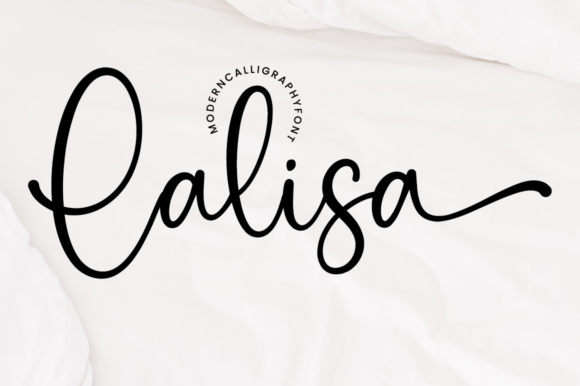
Looking for the perfect font to add a touch of elegance and class to your designs? Look no further than Lalisa Font! Created by RasdiType, Lalisa is a stunning and delicate script font that is guaranteed to elevate your projects to new heights.
With its unique and refreshing look, Lalisa Font is perfect for anyone who wants to make a bold statement with their designs. Whether you're creating invitations, logos, or even script tattoos, this font is sure to leave a lasting impression.
One of the standout features of Lalisa Font is its PUA encoding, which allows you to effortlessly access all of the gorgeous glyphs and swashes it has to offer. This means that you have endless possibilities when it comes to customizing and personalizing your designs.
The versatility of Lalisa Font is truly remarkable. Its flowing and graceful characters will add a touch of sophistication to wedding invitations, while its bold and expressive strokes will make your logo designs stand out from the crowd. No matter the project, Lalisa Font is sure to deliver stunning results every time.
But Lalisa Font is not just about looks. It is also designed with user-friendliness in mind. The ease of use and accessibility of its glyphs and swashes make it a breeze to work with, even for those who are new to using script fonts. Don't let the intricate details fool you – Lalisa Font is designed to make your creative process seamless and enjoyable.
When you choose Lalisa Font, you're not just getting a font – you're getting a tool that will inspire and empower your creativity. Its captivating and emotional appeal will draw attention and leave a lasting impression on your audience.